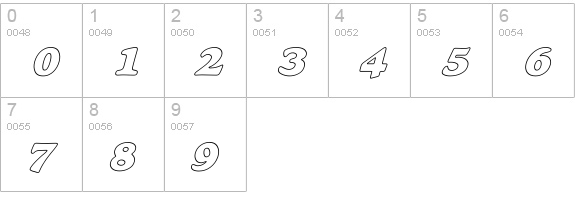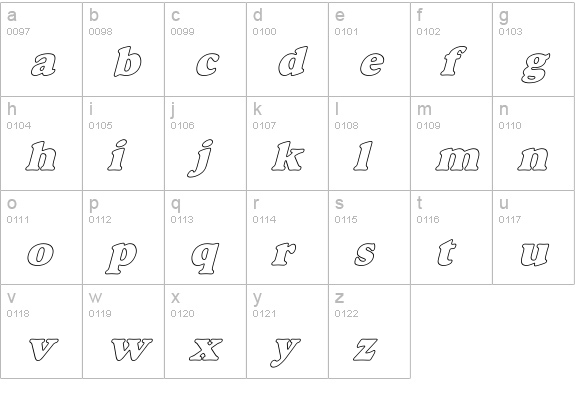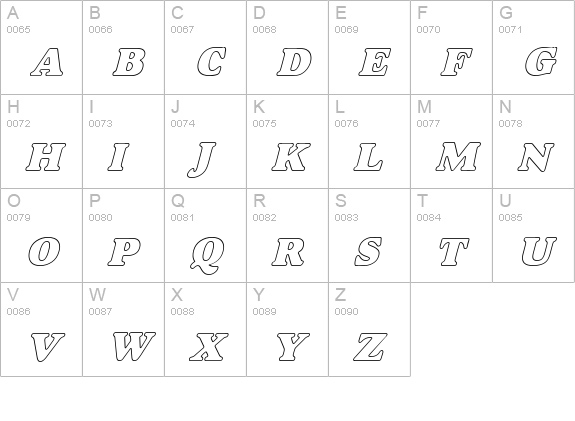
Alexuss Heavy Holl_I Italic is a heavy, high-impact, italic variant in the Alexuss typeface family \xE2\x80\x94 well suited to high-impact headlines, posters, and display advertising.
Introducing Alexuss Heavy Holl_I Italic font, a bold and dynamic typeface designed to make a statement. With its unique combination of heavy weight and italic styling, this font exudes a sense of strength and sophistication. The sleek and modern design of Alexuss Heavy Holl_I Italic font is perfect for headlines, titles, and branding projects that require a touch of elegance and impact. What's even better is that Alexuss Heavy Holl_I Italic font is available for free download at FontsMarket.com. Yes, you read that right - you can access this stylish and versatile font without having to spend a dime. Don't miss out on the opportunity to add Alexuss Heavy Holl_I Italic font to your font collection today and elevate your design projects with its powerful presence.